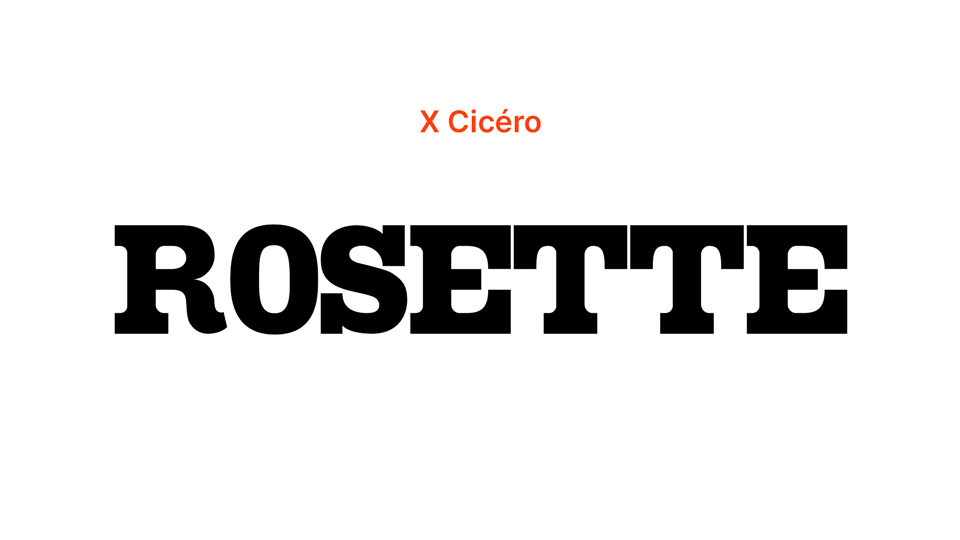
Download Rosette font, a slab serif typeface designed from an incomplete set of capitals, the shapes of which correspond to the Series E by the French Typographic Foundry. Rosette is a bold and effective titling font which harkens back to old times and advertising on a grander scale.
Designer: Agathe Masa